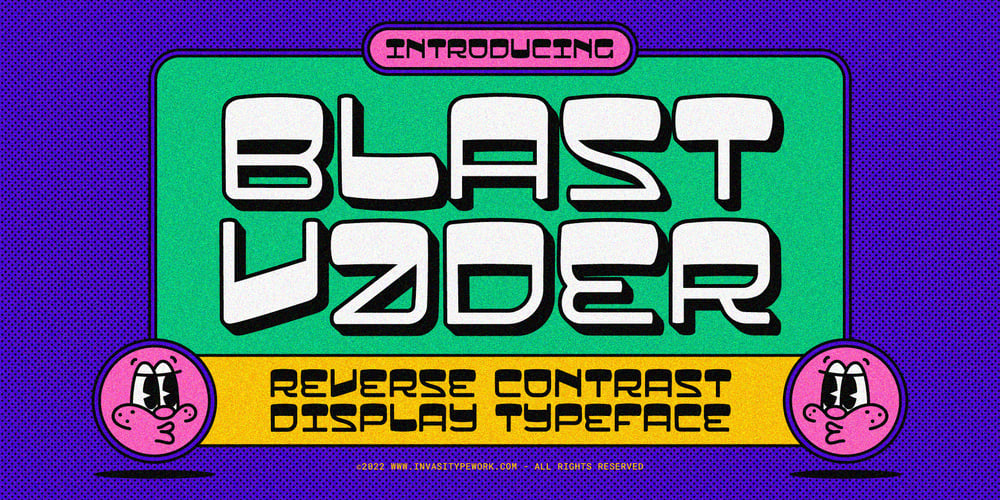
Blastvader Font Family was designed by Gha Arizal and published by Invasi Studio. Blastvader contains 1 styles and family package options. Introducing a new collection of retro display fonts. Blastvader is a reverse contrast retro display font. The glyphs have a fat rounded shape. It’s ideal for headlines, flyers, posters, greeting cards, product packaging, book covers, logotypes, and album covers, among other things. Ensuring carefully crafted styles result from the use of this font. The alternates in this font can add more fun to your projects. Its imperfections keep it casual while still providing legibility. Features: Total 209 Glyph Uppercase Numerals & Punctuation Alternates Multilanguage Supports 60+ Latin based languages